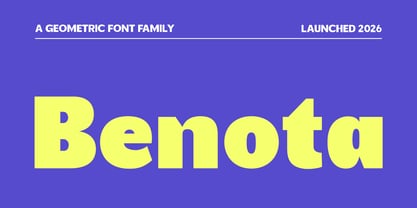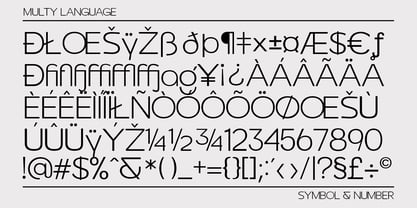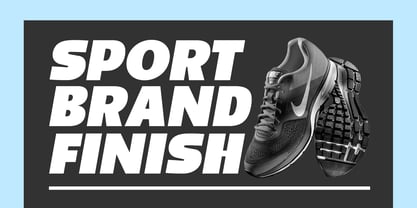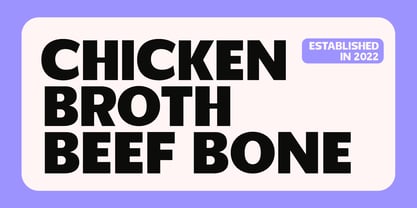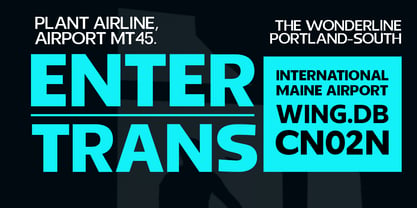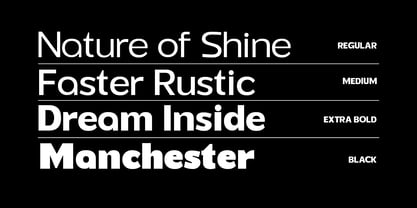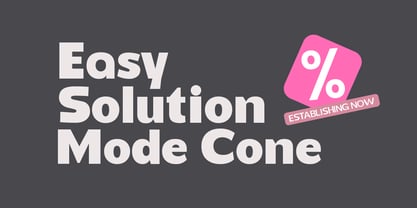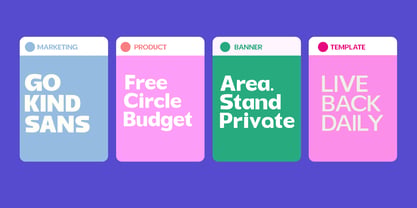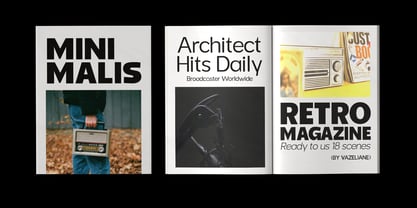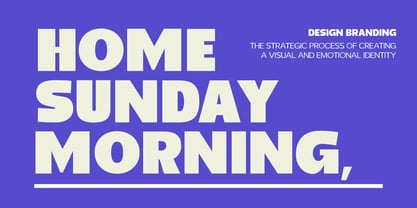
Benota
The Benota Font Family was designed by khaidir and published by Gatype. Benota contains 14 styles and family package options. More about this family
Benota is a skillful and authentic geometric sans serif font family. Featuring harmonious weights and slants, and fourteen complete letterforms, each offering something different with its own dynamic weight, all designed to work harmoniously together. With its minimalist design, low contrast, large x-height, and thin black weight (with additional ligature letters), Benota is perfect as a primary text and display font for branding, advertising, packaging, headlines, magazines, websites, logo design, and more. This font family is the result of hard work, making it as easy and comfortable to use as possible. I hope I can be a supporter of your best design creations.
Benota